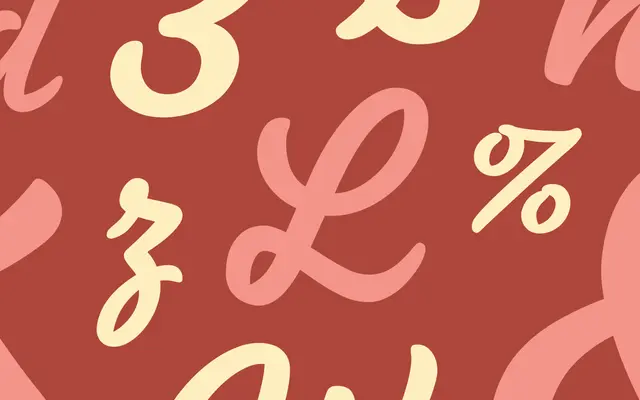
Linzer
Dalton Maag · Franziska Hubmann · 2026
A monoline script by Franziska Hubmann inspired by the Austrian linzer cookie, with swashes and rounded terminals for packaging and branding.
A monoline script by Franziska Hubmann that lifts its name and feel from the classic Austrian linzer cookie. Smooth even strokes, swashes and generous loops give it a wholesome, creamy character that suits packaging, food and lifestyle branding. A specialist display script rather than a workhorse text family.
Dalton Maag classifies Linzer as a wholesome, creamy script font defined by smooth monoline curves, swashes and generous loops, with even strokes and rounded terminals.